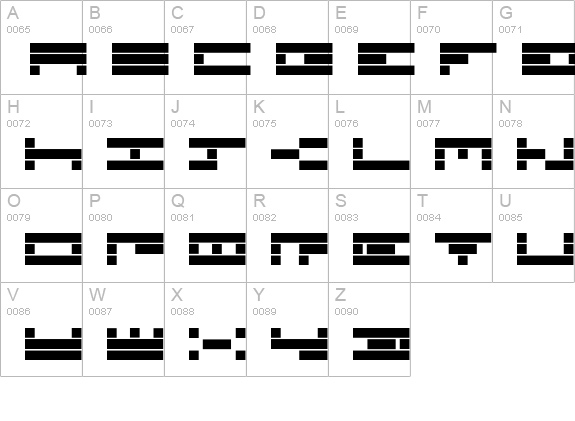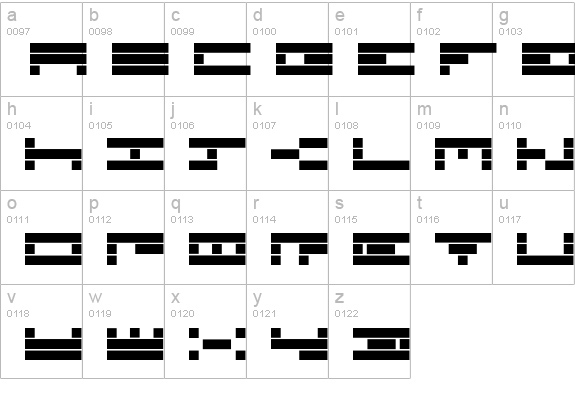
TimeBomb Font Details
Introducing TimeBomb, a captivating and explosive font that is sure to ignite your creative projects with its dynamic energy and bold presence. This font is the ultimate timebomb, ready to detonate your designs and make a lasting impact. With its unique and edgy letterforms, TimeBomb commands attention and demands to be noticed. Its sharp angles and powerful lines create a sense of urgency and intensity, adding a thrilling touch to any design. Whether you're looking to create attention-grabbing headlines, eye-catching logos, or impactful branding materials, TimeBomb will never fail to leave a lasting impression. One of the most exciting aspects of TimeBomb is that it is available for free. Yes, you read that right! This explosive font can be freely downloaded at FontsMarket.com, allowing you to unleash its power without any cost. FontsMarket.com is a trusted platform known for its vast collection of high-quality fonts, and TimeBomb is just one of the many gems you can find there. So don't wait any longer, download TimeBomb today and let its explosive nature set your designs on fire. Whether you're a graphic designer, a creative professional, or simply someone who appreciates the impact of great typography, TimeBomb is the perfect tool to add that extra punch to your projects. Get ready to watch your designs explode with creativity and captivate audiences like never before.